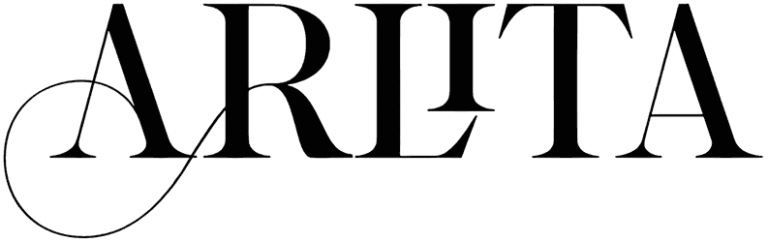
El Fonte Angelia Font
Texts with a classic appearance can always compete with the best designs and this serif font is one of the ace ones. El Fonte Angelia with its specific face would be a nice style for a lot of projects from posters to mag…
Texts with a classic appearance can always compete with the best designs and this serif font is one of the ace ones. El Fonte Angelia with its specific face would be a nice style for a lot of projects from posters to magazines. With a full backup of characters in four weights, it gives you a good opportunity to create different mixes.